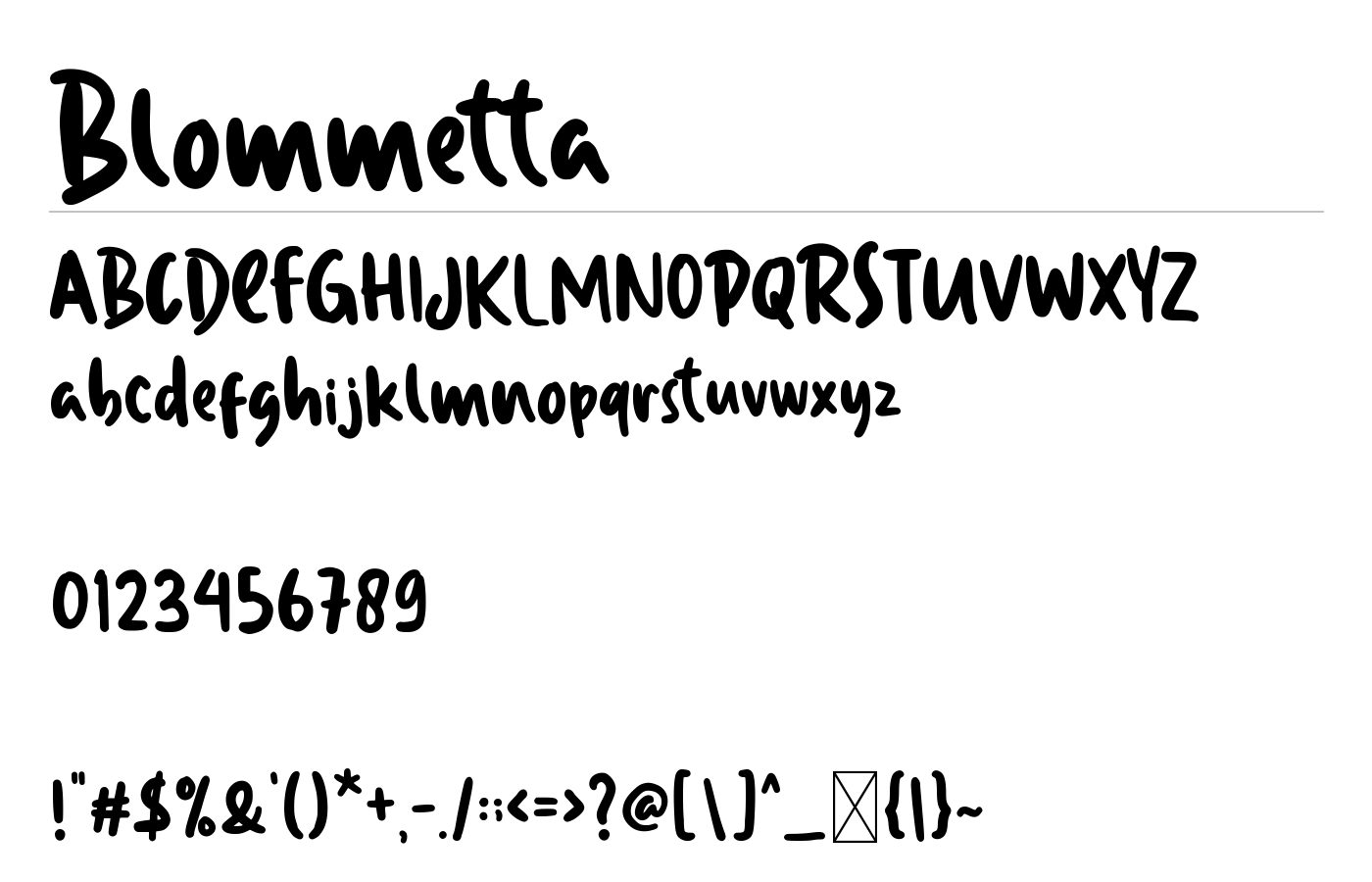
Blommetta is a playful, handwritten-style sans serif font with a casual, friendly feel. Its rounded, slightly irregular letterforms and medium weight make it perfect for adding a personal touch to branding, invitations, or children's content. This font works best in headlines and logos where an informal, approachable vibe is desired.
Blommetta Font
About Blommetta Font
| Font family | Blommetta Font |
| Designer | M Arif Dwi Prasetyo & Eko Nurcahyo |